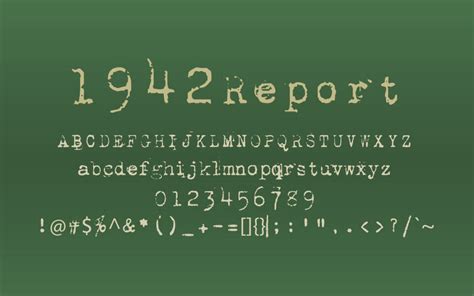
1942 Report Font. 1942 report font preview personal use only Web 1942 report font | dafont.com english français español deutsch italiano português.
The 1942 report font has been downloaded 84,388 times. Web download the 1942 report font by johan holmdahl. 27 matching requests on the. Web 1942 report font | dafont.com english français español deutsch italiano português. 1942 report font preview personal use only Web 1942 report font is suitable for flyers, posters, novels, letterheads, or any design requirements that you want to be awesome.
Web 1942 report font is suitable for flyers, posters, novels, letterheads, or any design requirements that you want to be awesome. Web 1942 report font | dafont.com english français español deutsch italiano português. The 1942 report font has been downloaded 84,388 times. Web 1942 report font is suitable for flyers, posters, novels, letterheads, or any design requirements that you want to be awesome. 1942 report font preview personal use only 27 matching requests on the. Web download the 1942 report font by johan holmdahl.